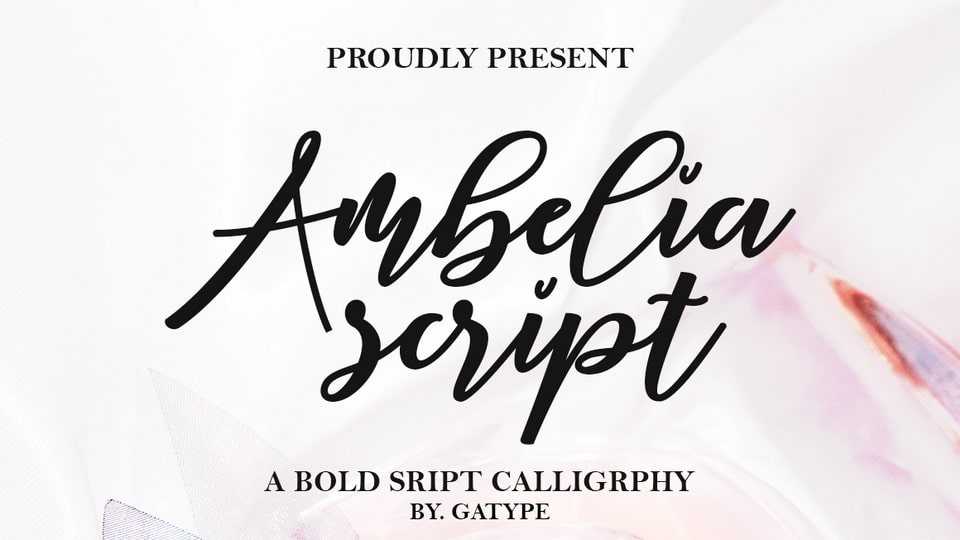
Download Ambelia Script font, a natural handwritten typeface, it is perfect for logos, invitations, stationery, wedding designs, social media posts and so on.